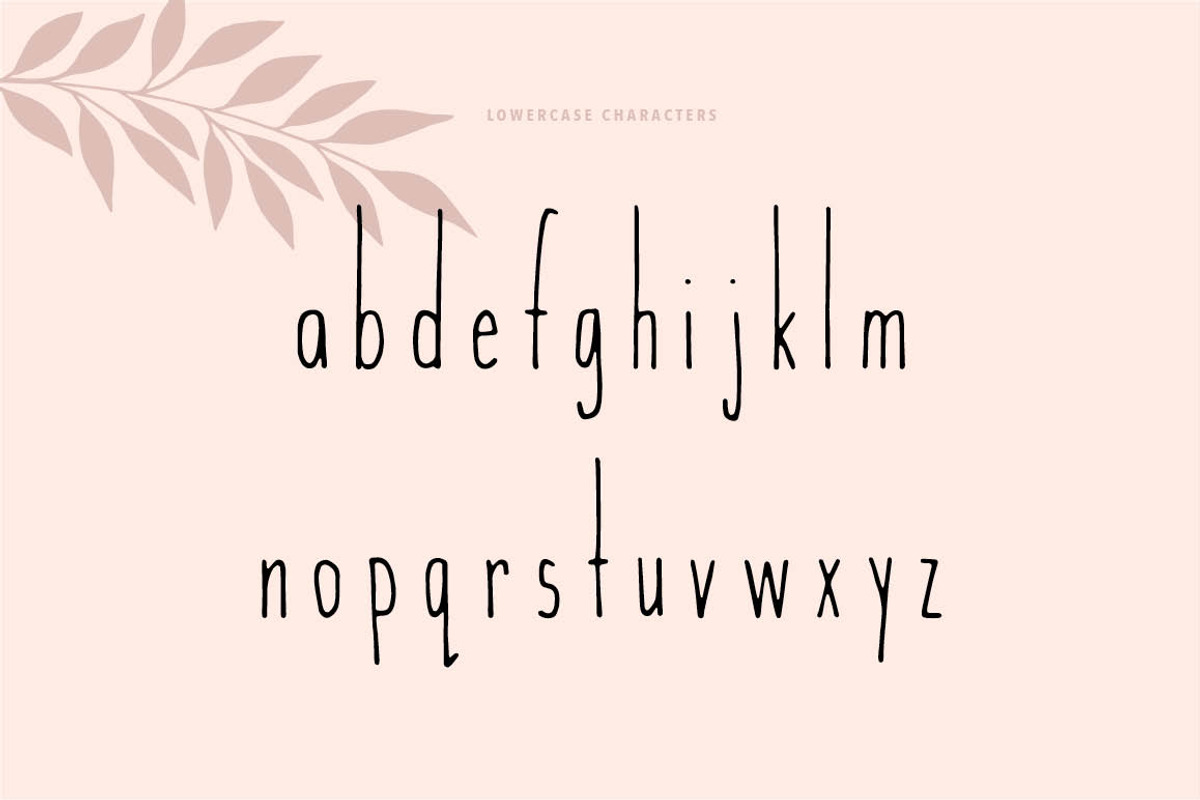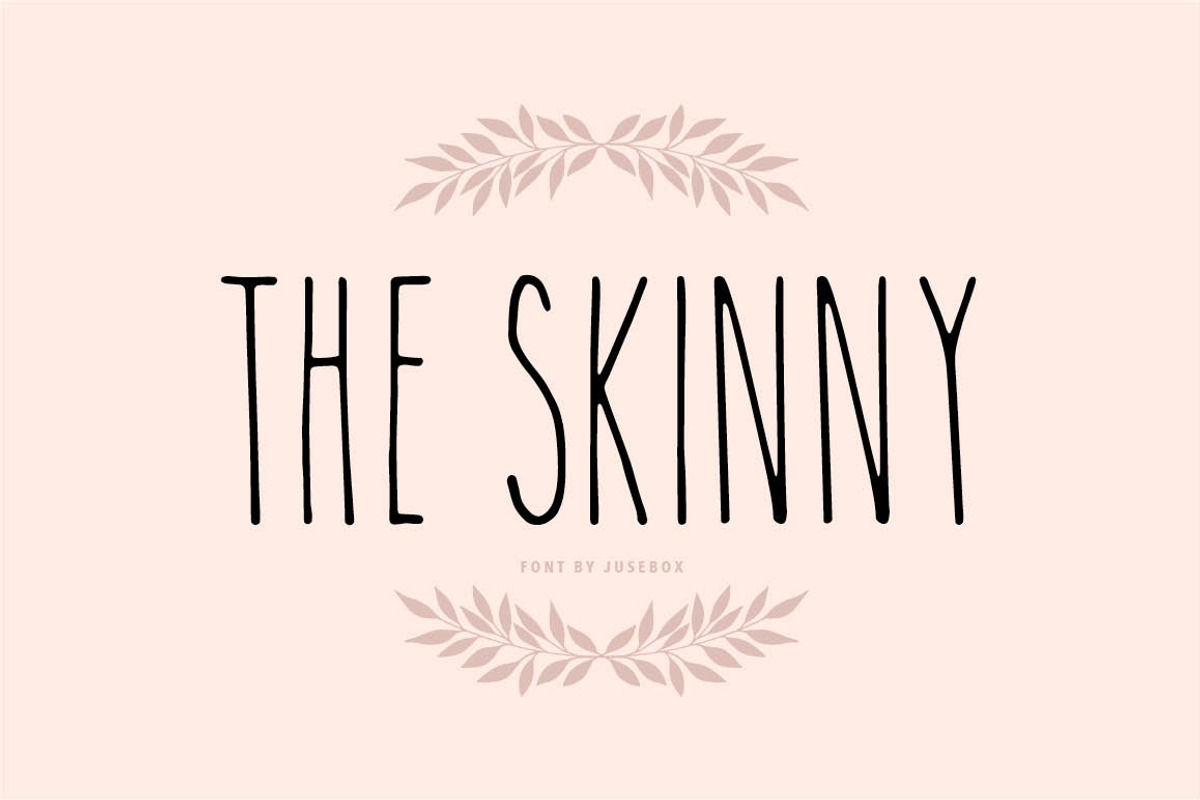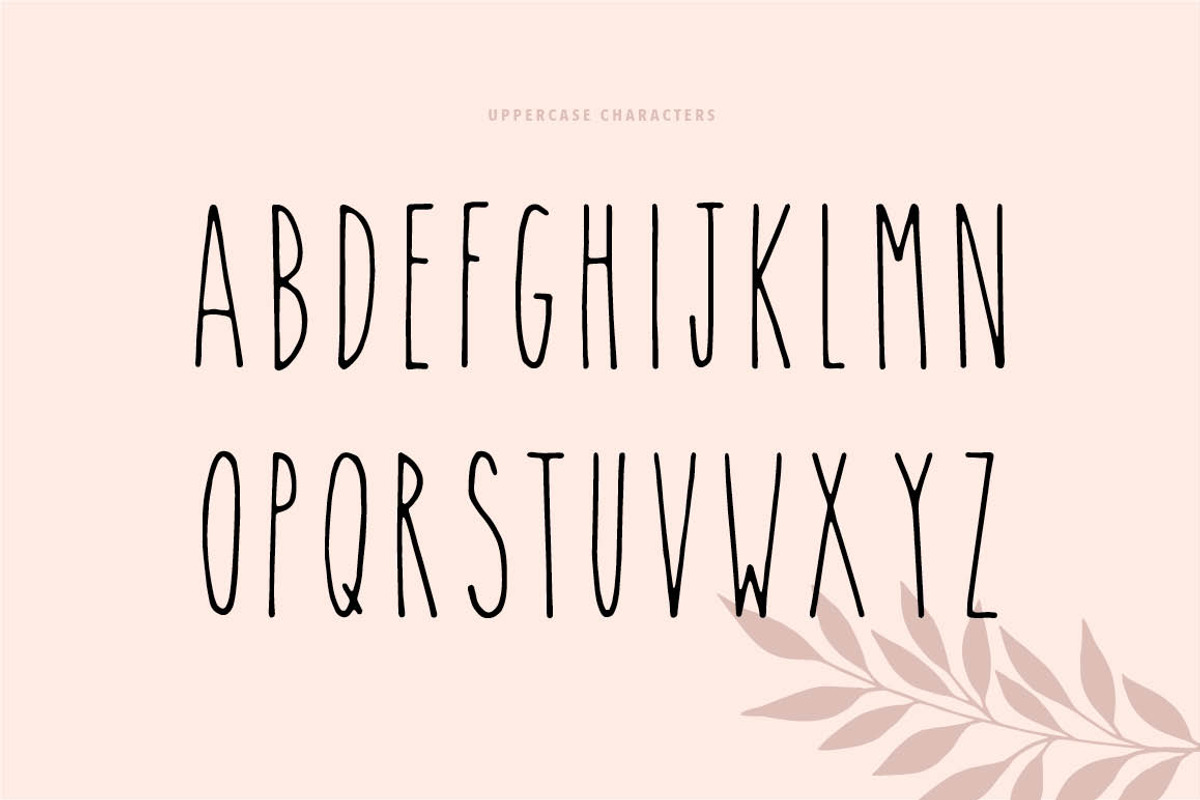
The Skinny Font
light, regular, bold weights
numbers & special characters
- light, regular, bold weights
- uppercase characters
- lowercase characters
- numbers & special characters
- The Skinny Light
- The Skinny Regular
- The Skinny Bold